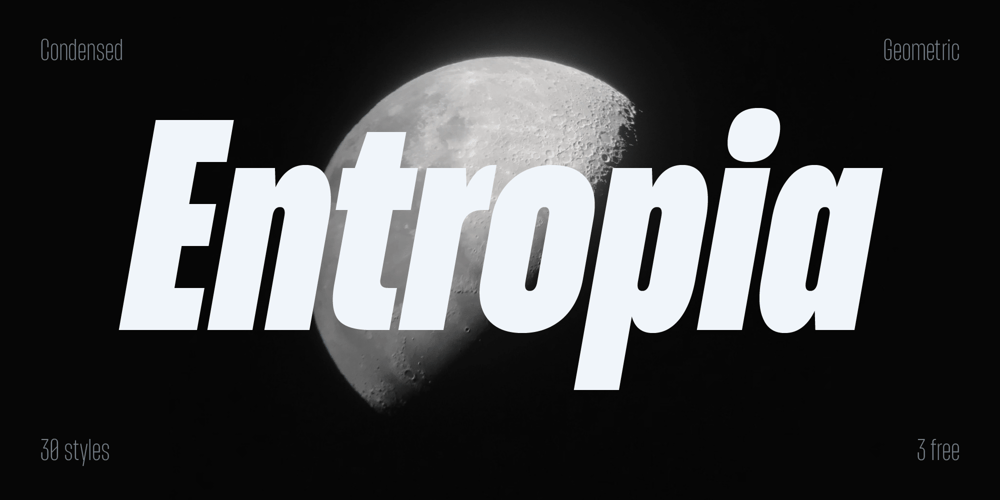
Entropia
Entropia font
Entropia Font Family was designed by Slava Antipov and published by Slava Antipov. Entropia contains 30 styles and family package options. Entropia is a new condensed geometric grotesque. It supports many languages using Latin as well as Cyrillic (over 130 languages in total). The font consists of 10 weights, their italic versions, as well as a backslanted version. In total, the font family includes 30 styles. Entropia supports many OpenType features such as ligatures, alternate letterforms, fractional numbers, and more. The font is perfect for branding, social media, logos, presentations, posters, packaging and much more.